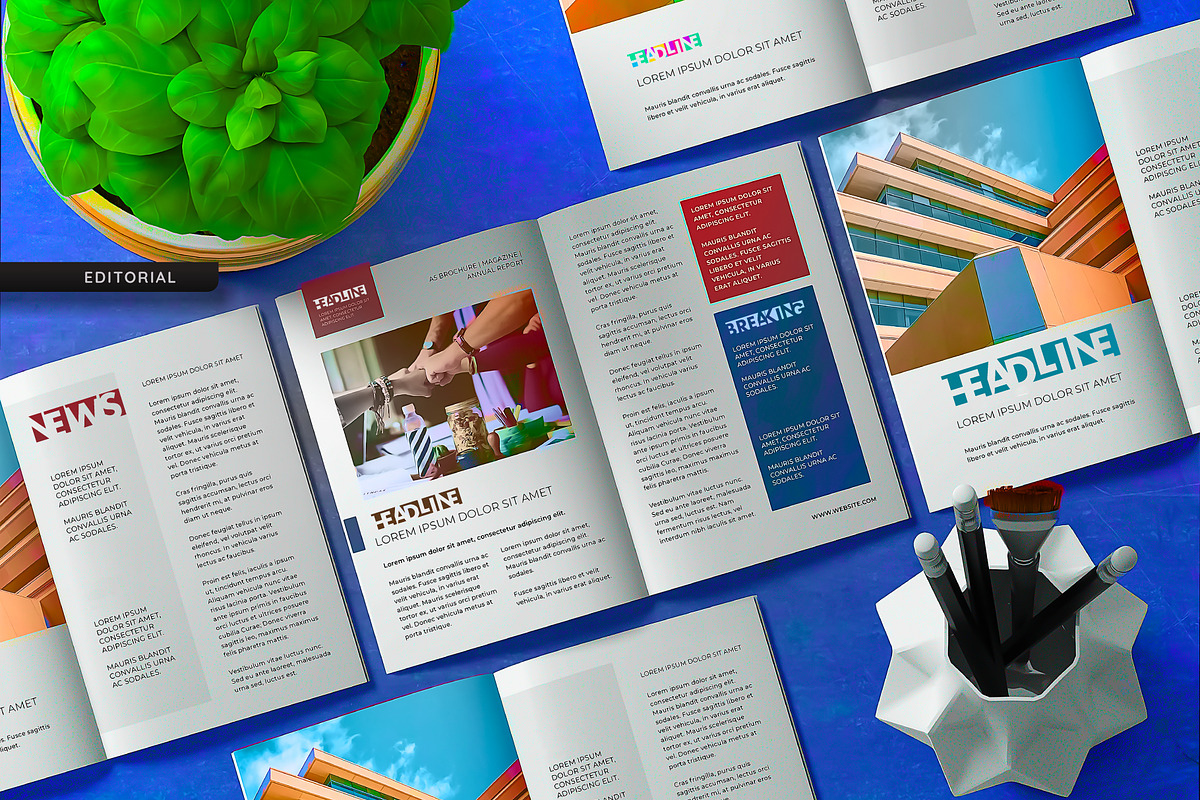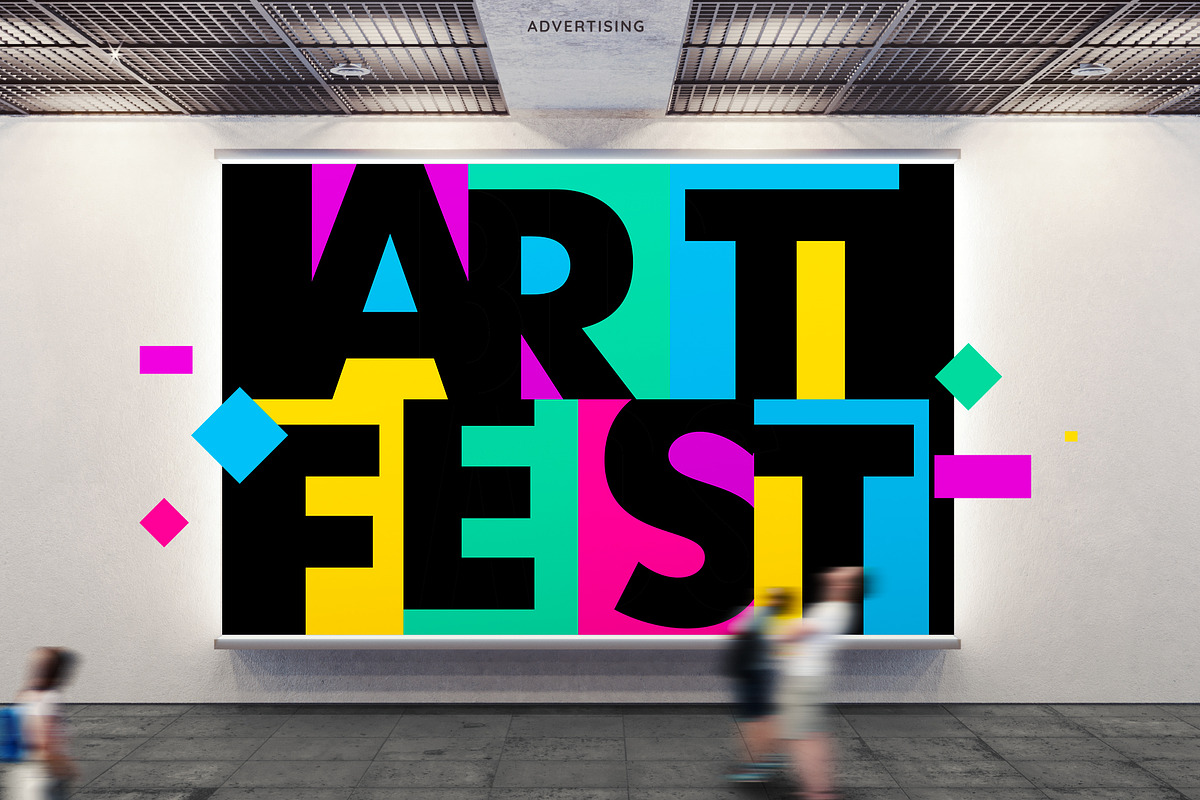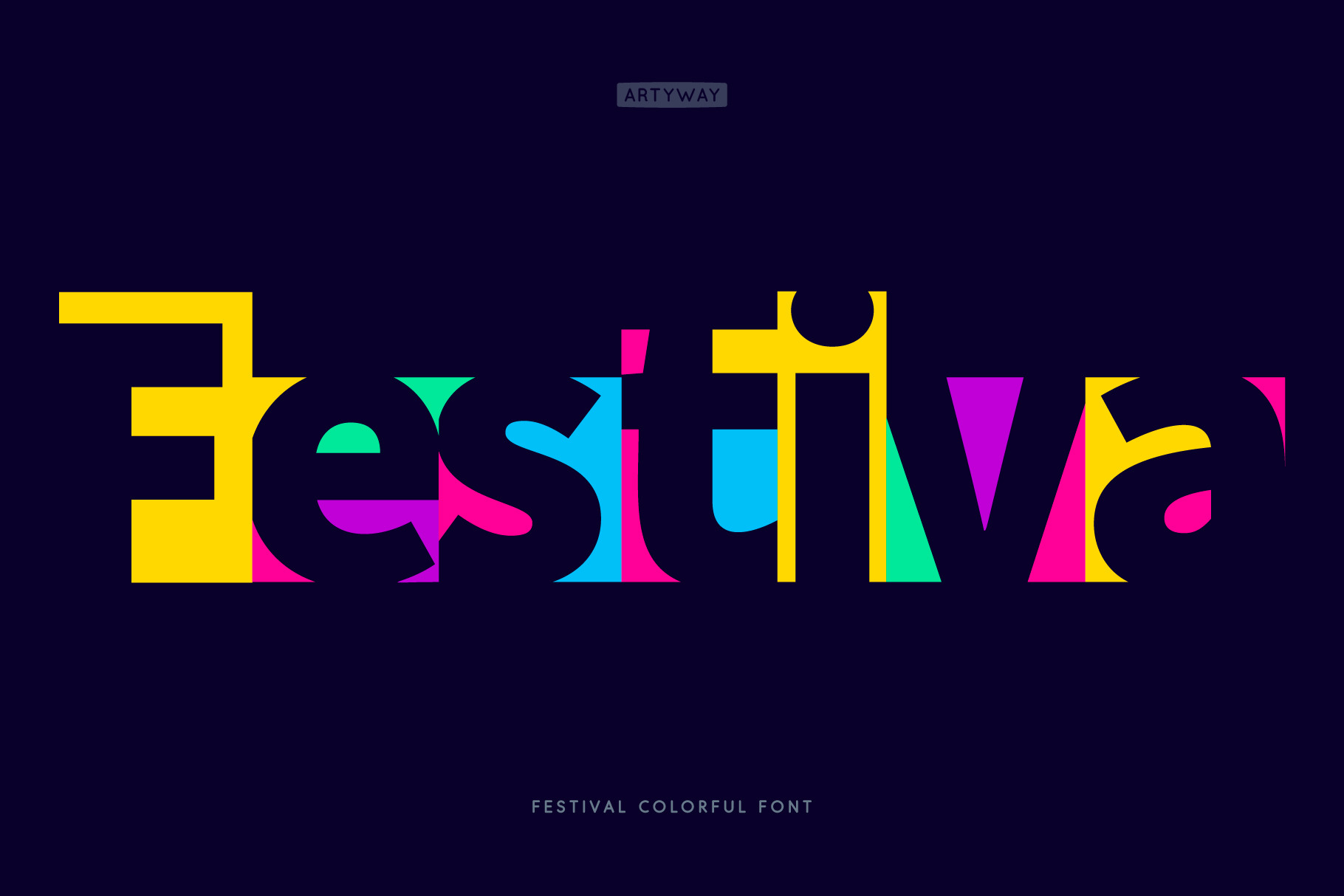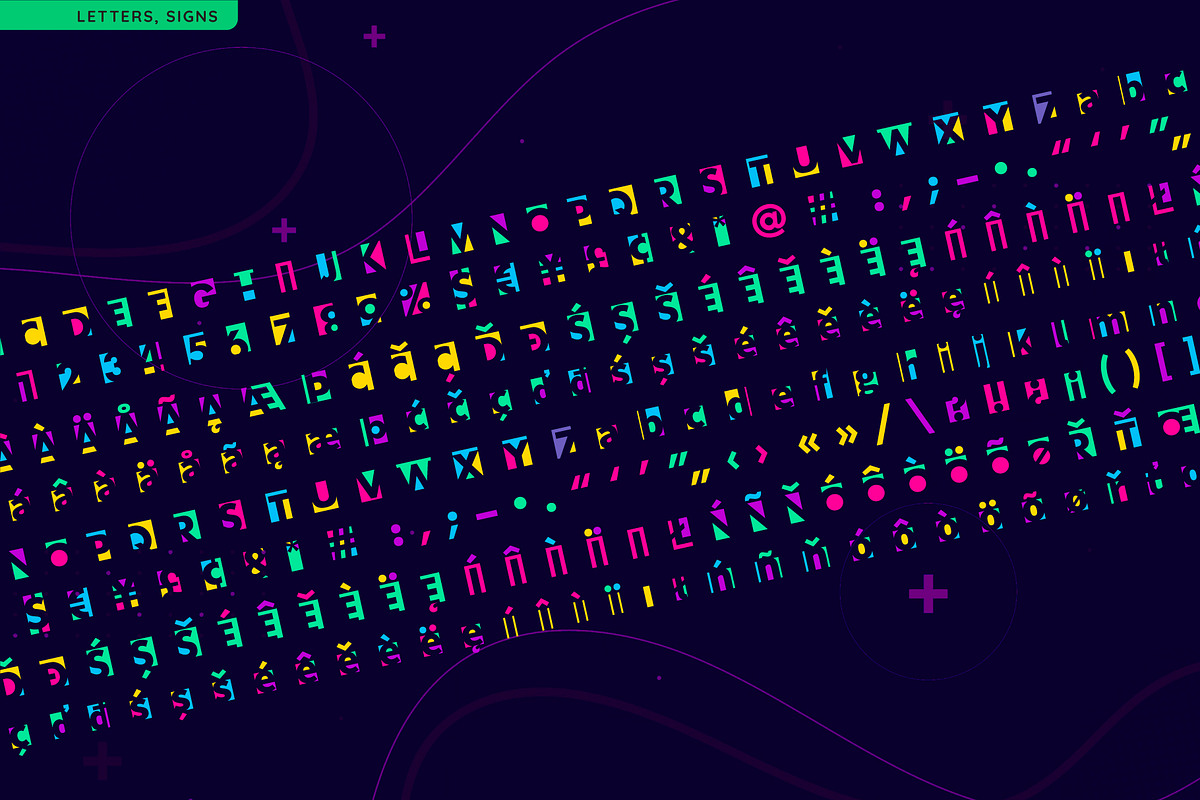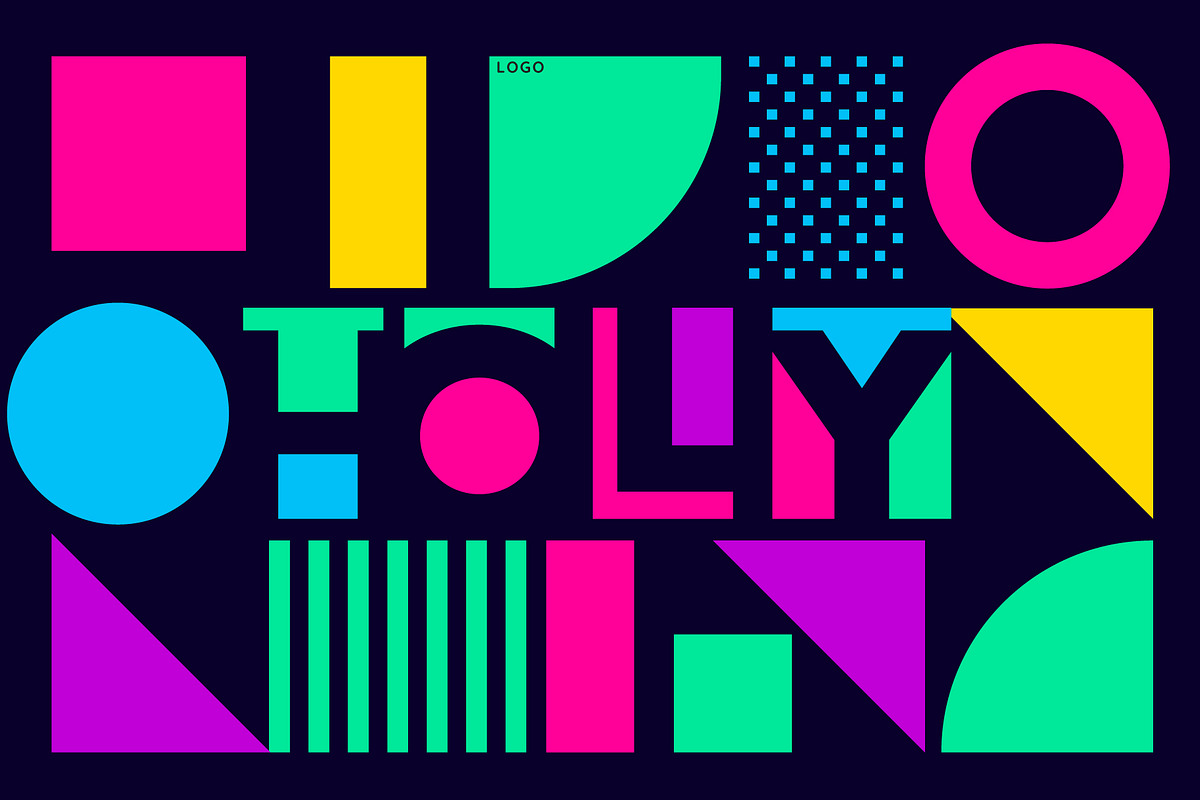
Festiva Font
Festiva Font – Geometric, Colorful, and Full of Party Energy
Make your designs stand out with Festiva Font, a bold geometric display typeface filled with vibrant colors and festive vibes. Perfect for projects that demand excitement, energy, and bold visual impact. Its playful shapes and colorful patterns make it ideal for creating standout headlines and engaging graphics.
- Party and event branding
- Mexican or Indian festive posters
- Vibrant geometric logos
- Birthday cards and celebration banners
- School projects and playful visuals
Inject energy and fun into your projects with the Festiva Font. A perfect choice for designers looking to capture vibrant and festive energy!